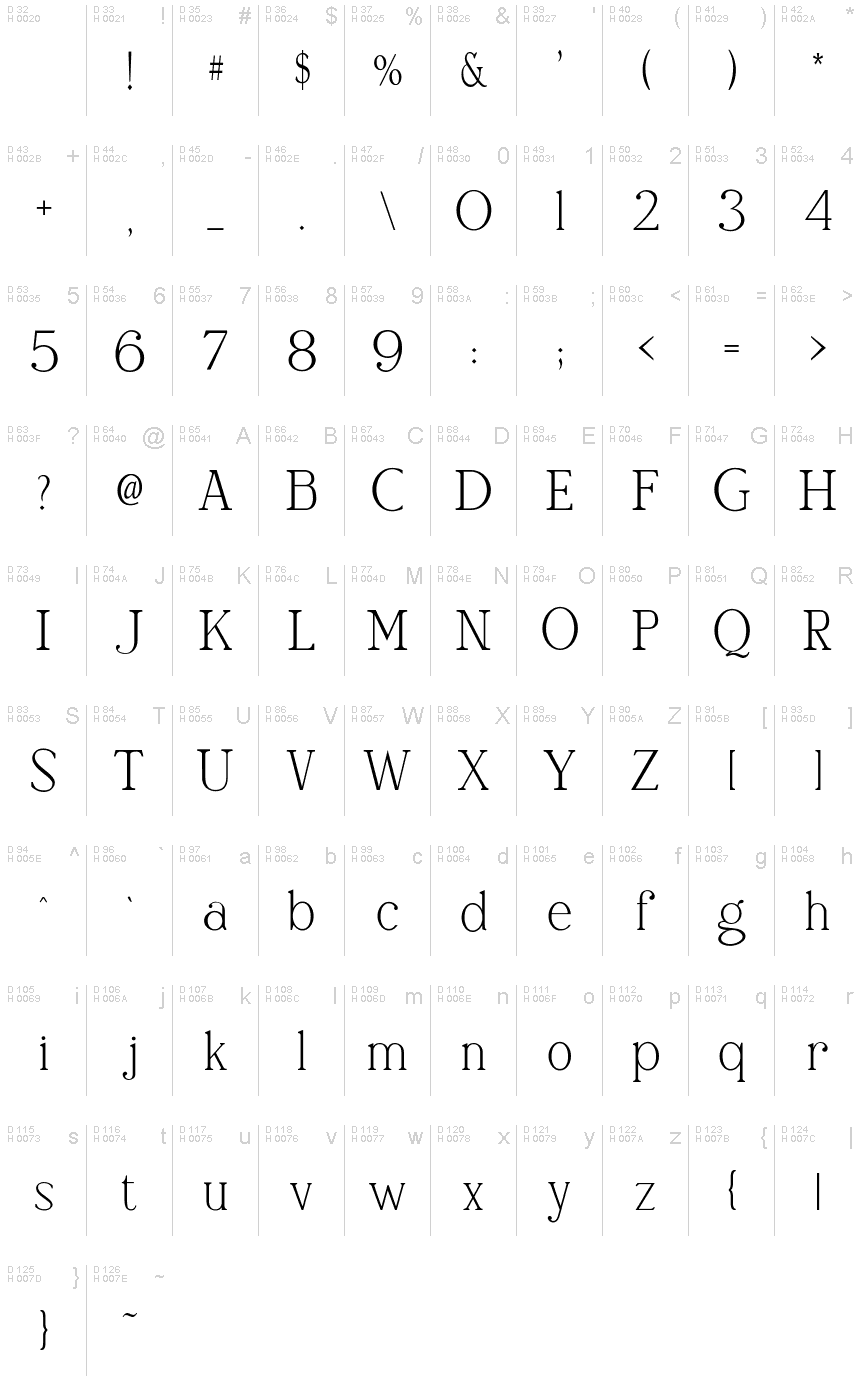
Balmoon
Balmoon, designed by Dwi Sulistyono, is a stunning serif font that exudes elegance and sophistication. Its semi-light weight adds a delicate touch to any project, making it suitable for a variety of applications such as wedding invitations, blogs, and editorial pieces. Balmoon's classic style and clean lines make it perfect for projects that require a touch of refinement. This font is versatile enough to be used in both print and digital media, making it an ideal choice for web designers looking to add some elegance to their websites. With its sleek and modern design, Balmoon will surely elevate any creative project you have in mind.